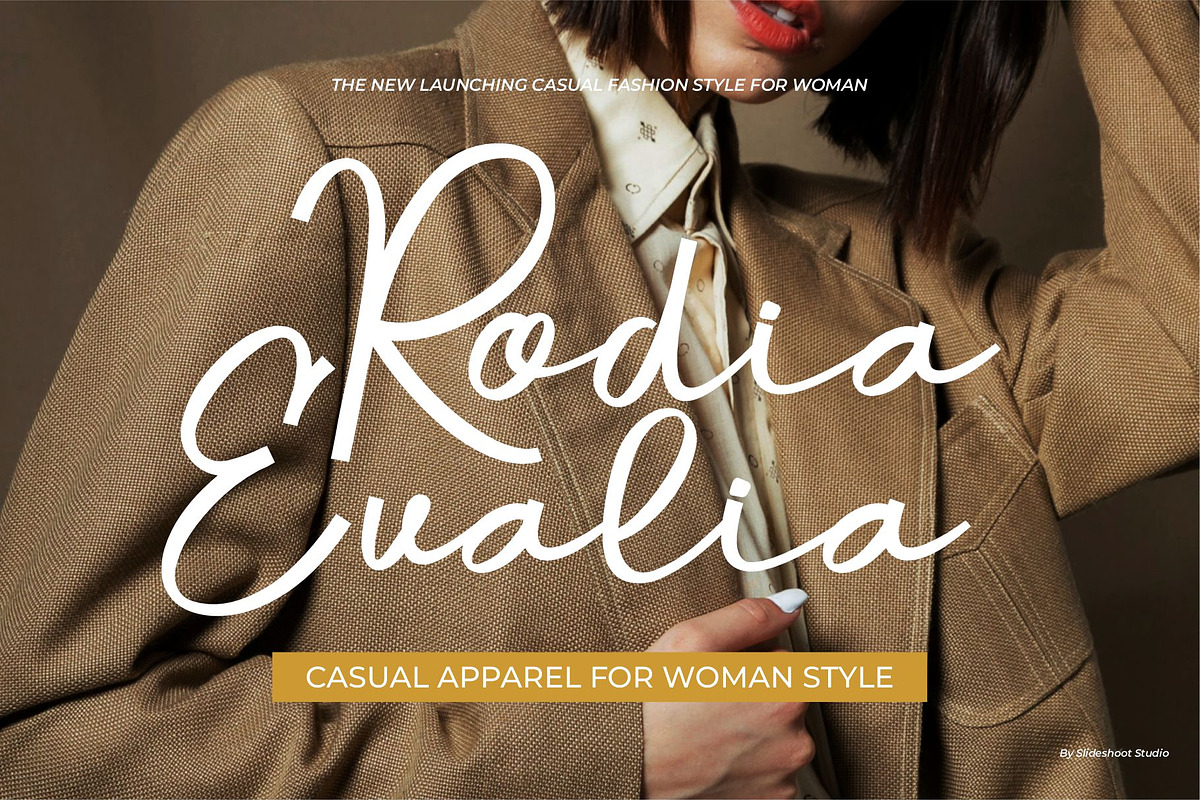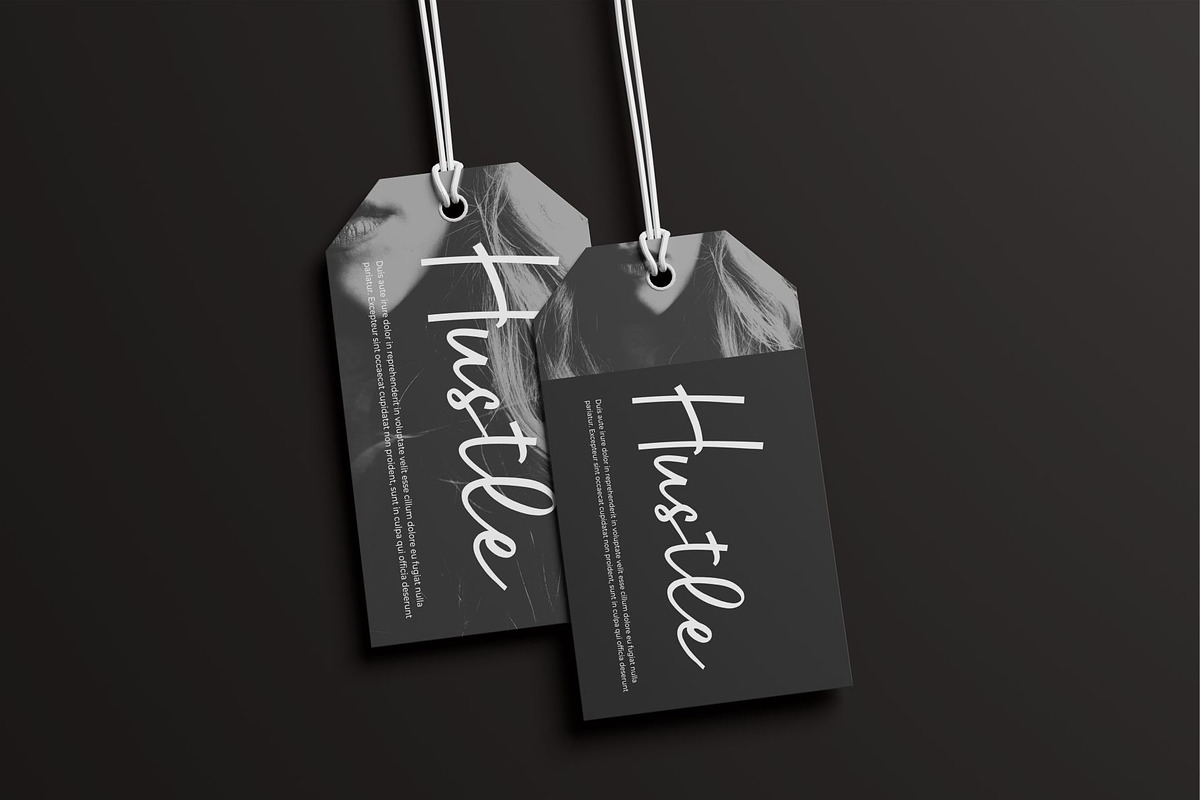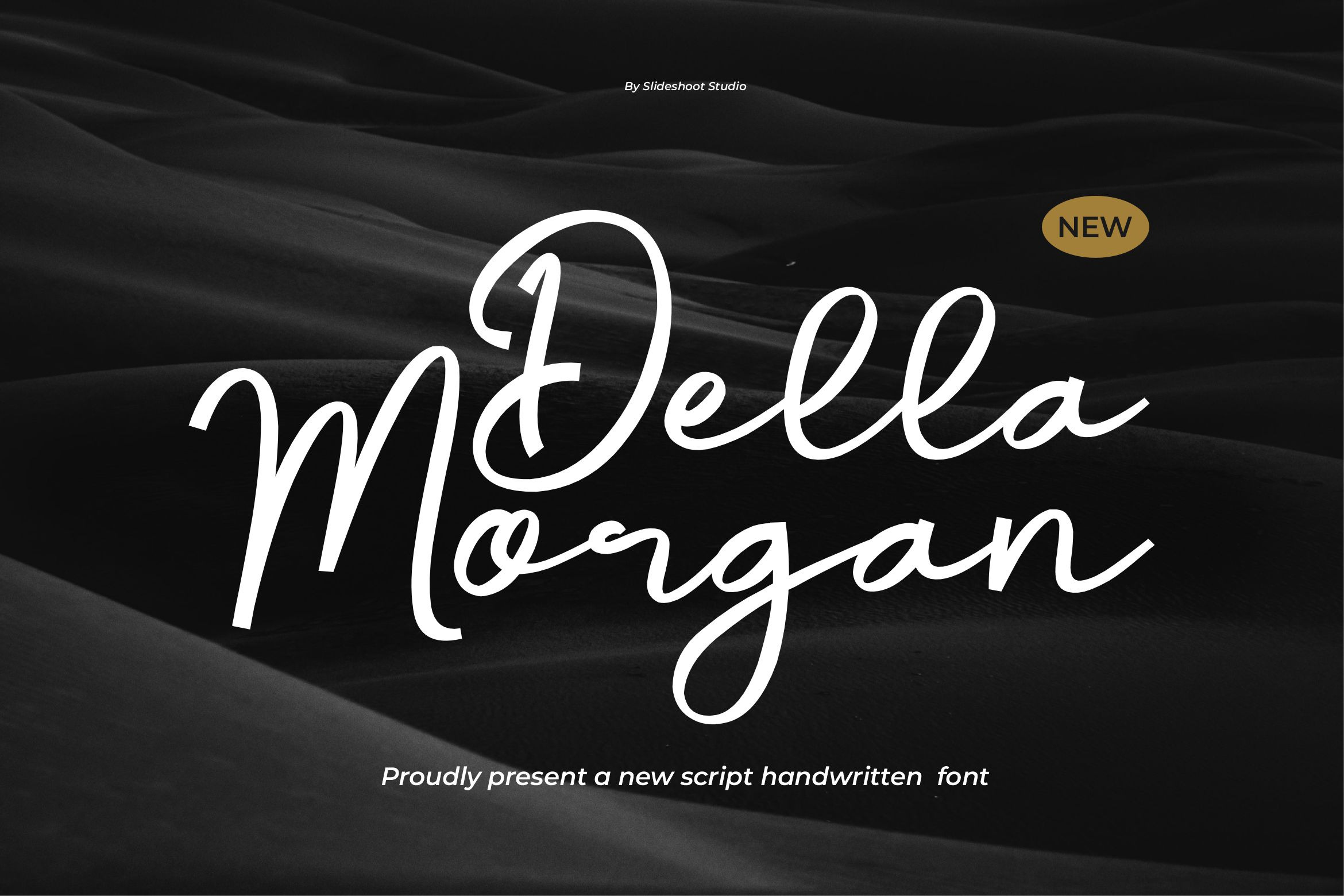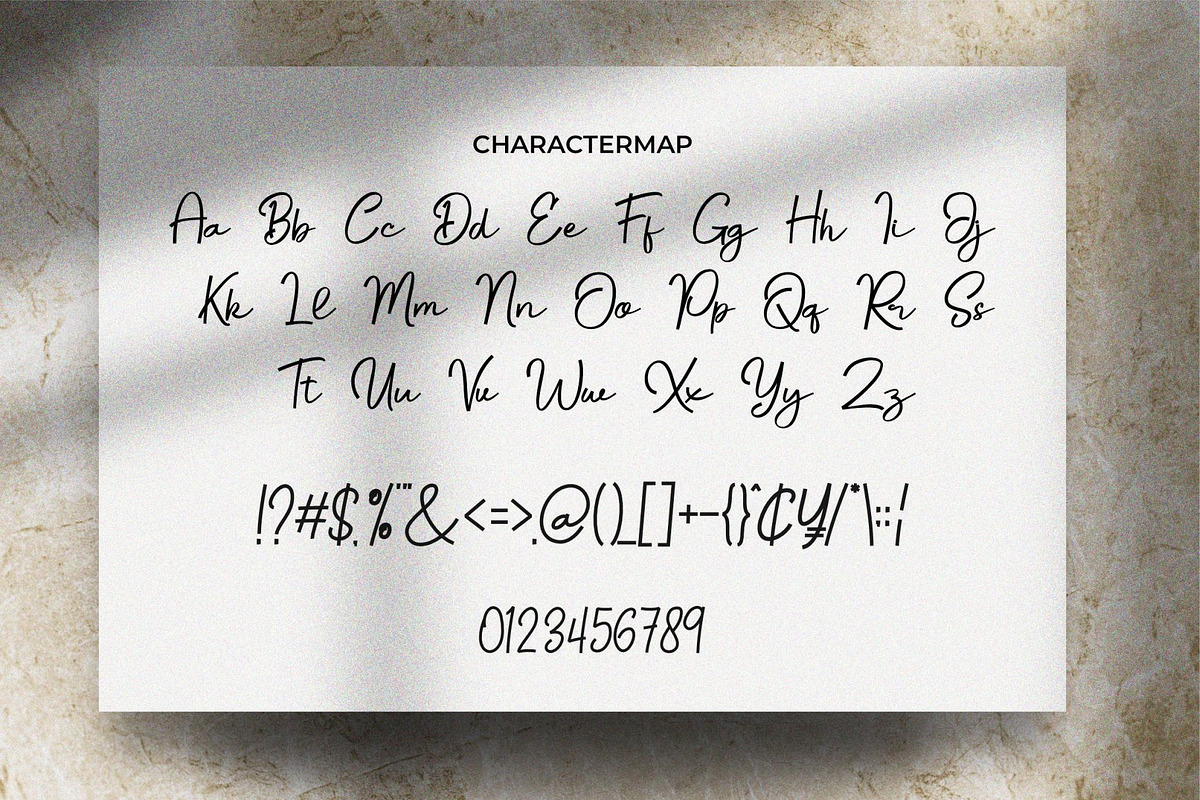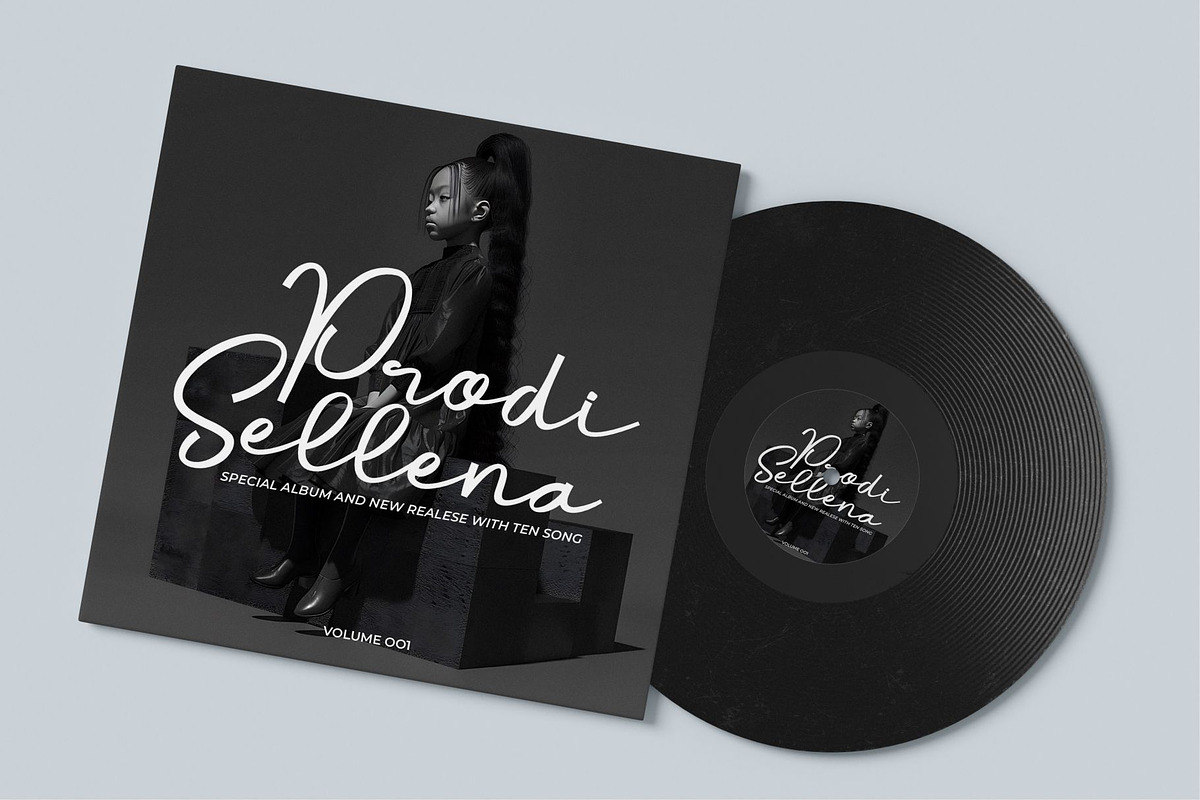
Della Morgan || Handwritten Font
Hello everyone, I would like to introduce Della Morgan a handwritten font with a casual and elegant style.
Della Morgan can also be used for a variety of projects such as branding, labels, photography, invitations, stationery, wedding designs, social media posts, advertising, product packaging, product design and other awesome projects.